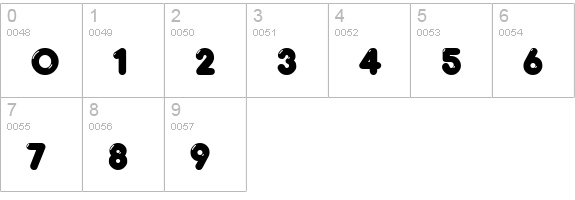
Glowworm font is a stunning display typeface that exudes elegance and sophistication. Its sleek lines and graceful curves make it perfect for adding a touch of modern flair to any design project. Whether you're creating a logo, branding materials, or eye-catching headlines, Glowworm font is sure to make a bold statement. What sets Glowworm font apart is not just its striking appearance, but also the fact that it is completely free to download. Yes, you read that right - this beautiful font is freely available to download at FontsMarket.com. So you can bring your creative vision to life without having to worry about breaking the bank. With Glowworm font, you'll have the perfect tool to elevate your designs and captivate your audience. So go ahead, unleash your creativity and let Glowworm font illuminate your projects with its undeniable charm and sophistication.